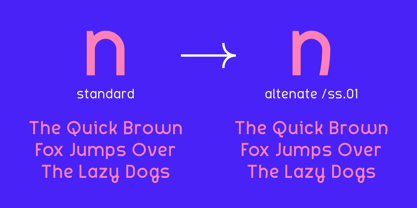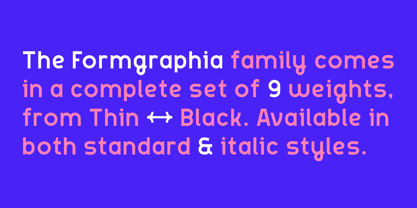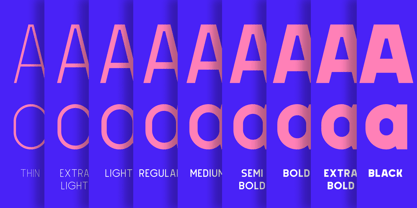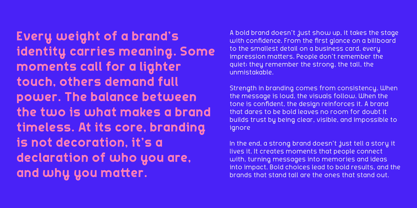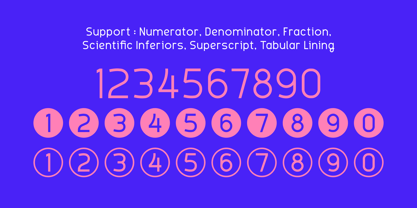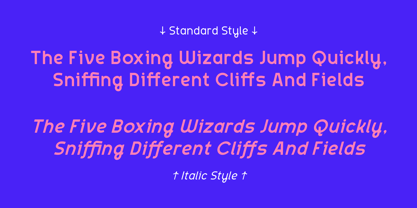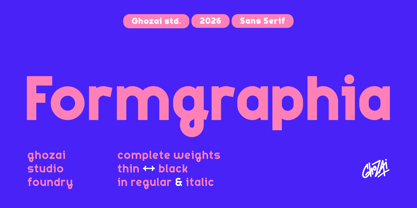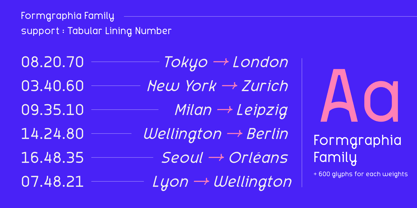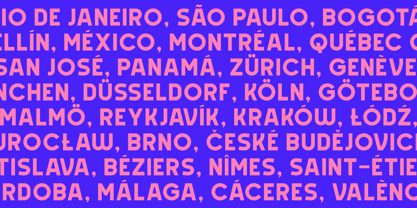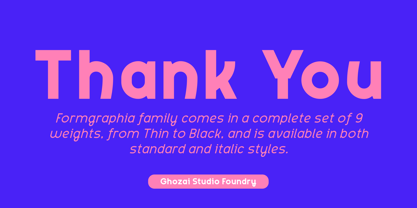
Formgraphia
by Ghozai Studio
The Formgraphia Font Family was designed by Manzur Ghozaali and published by Ghozai Studio. Formgraphia contains 18 styles and family package options. More about this family
Formgraphia is a grotesk-sans font family that offers an impressive selection of 9 distinct weights, ranging from Thin to Black, along with both regular and italic styles, totaling 18 fonts. This extensive range of weights is enhanced by a rich set of symbols, OpenType features, and Tabular Lining numbers, providing exceptional versatility for various languages and design needs. Its modern, clean, and bold aesthetic makes it perfect for a wide array of applications, including display, branding, signage, festival posters, sports, and more. Whether crafting impactful headlines, unique logos, or clear signage, Formgraphia seamlessly combines style with functionality. Its adaptability to different design styles positions it as an excellent choice for any project requiring a bold and contemporary flair.
Designers: Manzur Ghozaali
Current Foundry: Ghozai Studio